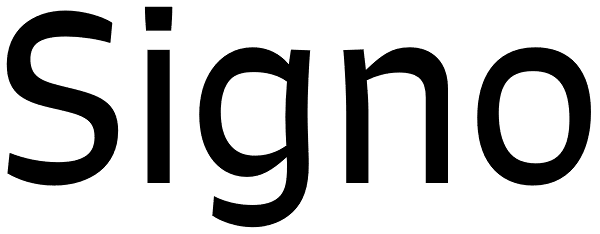
Signo
Signo is a dynamic sans serif with reverse contrast, designed for editorial and branding. Signo is a charismatic typeface for headlines, but its tall x-height and open counters also make it perform well in small sizes, resulting in a versatile...